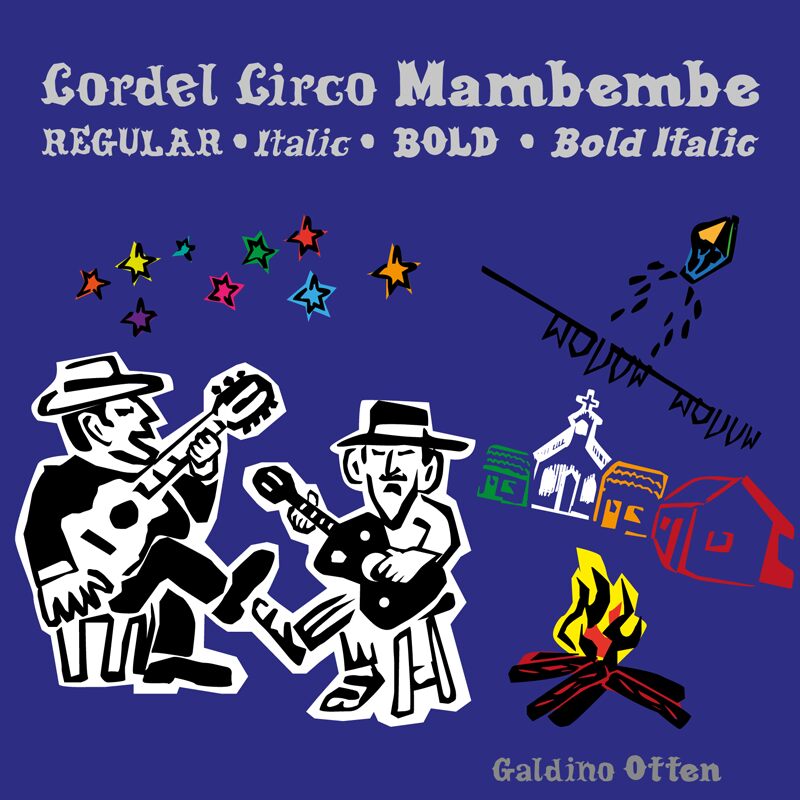
Designed by Galdino Otten Fonts, Cordel Circo Mambembe Bold Italic commands attention with its playful and whimsical flair. The font’s exaggerated curves and dynamic slant infuse text with energy, making it ideal for display purposes that require a vibrant, expressive touch. Its bold weight ensures strong visibility, while the italicized style adds an element of movement and charisma.
Perfect for posters, headlines, and artistic designs, Cordel Circo Mambembe Bold Italic transforms ordinary text into an eye-catching spectacle. Its unique character resonates well in environments that call for both fun and impact-think circuses, festivals, or creative events. Whether employed for branding or to inject some spirited personality into your project, this font stands out as a captivating choice.